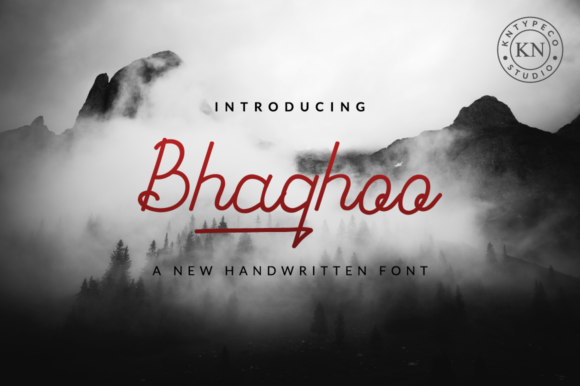
The Bhaqhoo Font: A Timeless, Handwritten Masterpiece
I’ll never forget the moment I stumbled upon the Bhaqhoo font. I was working on a project for a client who wanted a elegant, yet playful touch. I had spent hours scouring the internet for the perfect font, but nothing seemed quite right. That was until I saw Bhaqhoo – a beautiful, flowing handwritten font that instantly captured my attention. Its elegant touch and distinct style had me hooked, and I knew I had found the perfect fit for my project.
- ✨ Elegant and sophisticated: Bhaqhoo exudes a sense of refinement and luxury, making it perfect for high-end projects.
- ✅ Highly legible: Despite its flowing nature, Bhaqhoo is incredibly easy to read, even at smaller font sizes.
- 🌈 Versatile: Bhaqhoo works beautifully in a variety of contexts, from digital designs to print materials.
Of course, no font is perfect, and Bhaqhoo is no exception. Here are a few quirks to keep in mind:
- 🤔 Limited availability of certain characters: As with many handwritten fonts, some characters (like ligatures) may be limited or require additional setup.
- ⚠️ May not be suitable for very large or very small text: Bhaqhoo shines at display sizes, but may lose some of its elegance at very small font sizes.
The Story Behind Bhaqhoo
While the origins of Bhaqhoo may be shrouded in mystery, it’s clear that this font was created with a passion for elegance and refinement. Imagine a designer, sitting at their desk, pouring their heart and soul into creating a font that would capture the essence of handwritten beauty. That’s Bhaqhoo – a true labor of love.
| Font Name | Bhaqhoo Font |
| What makes Bhaqhoo unique? | Bhaqhoo’s unique blend of elegance and playfulness makes it a standout font. |
| Is Bhaqhoo suitable for body text? | While Bhaqhoo is beautiful at display sizes, it may not be the best choice for lengthy body text. |